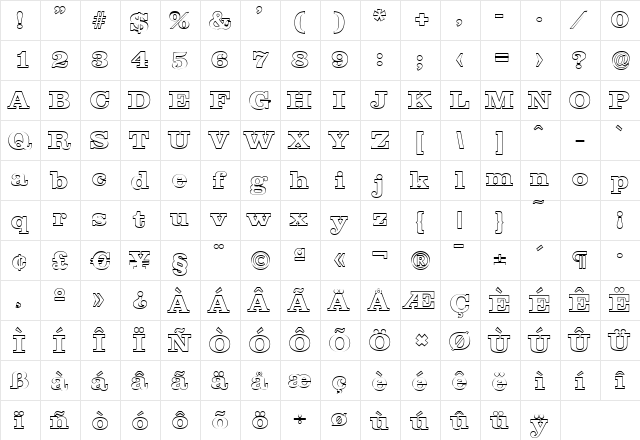
JamesBeckerOutline-ExtraBold Regular Font Preview
JamesBeckerOutline-ExtraBold Regular
Design Context for JamesBeckerOutline-ExtraBold Typeface
JamesBeckerOutline-ExtraBold is built around its visual character rather than neutral utility — its distinctive forms are designed to make an impression at display sizes. The heavy weight commands attention and anchors typographic hierarchies.
Font Pairing: Pair with a clean neutral sans-serif for body copy to let JamesBeckerOutline-ExtraBold's character lead without overwhelming the composition.
Pro Tip: Treat JamesBeckerOutline-ExtraBold as the centrepiece of your typographic hierarchy. One strong heading set in a decorative face can carry an entire layout.